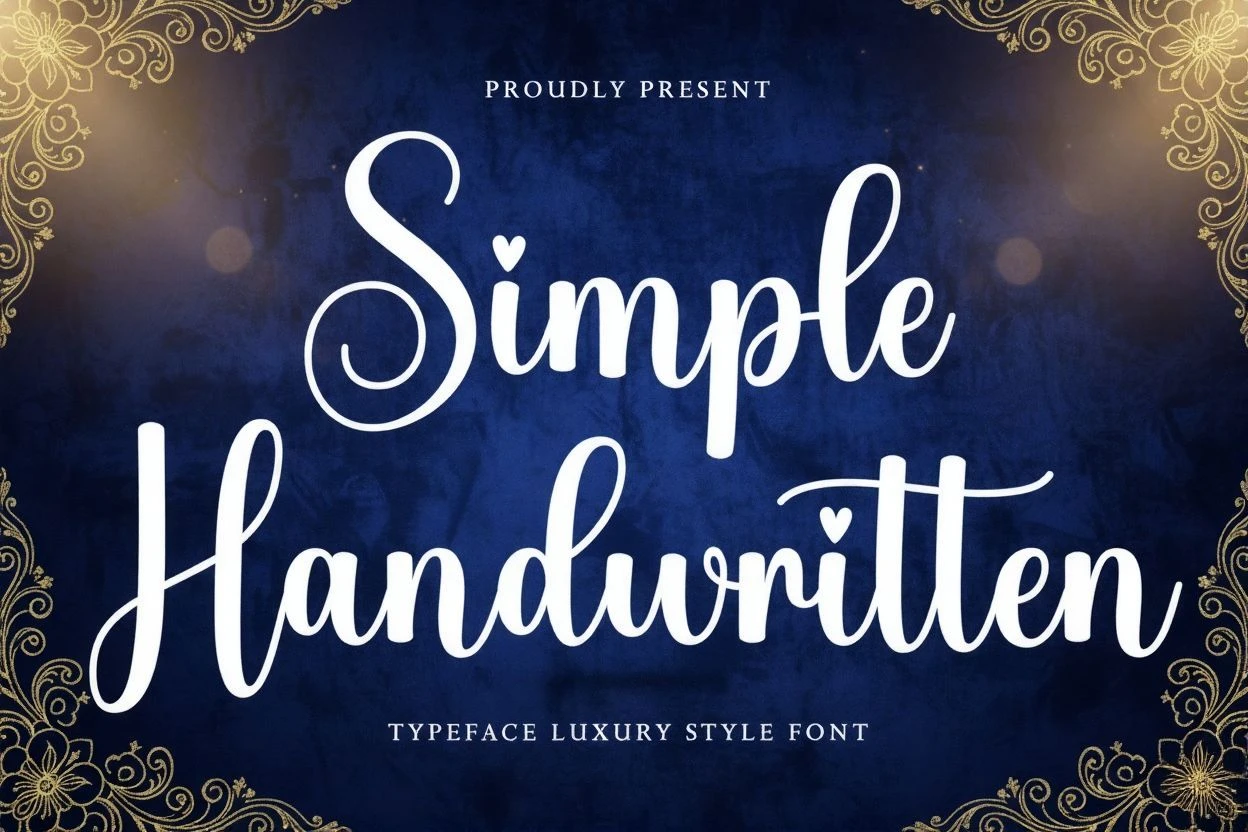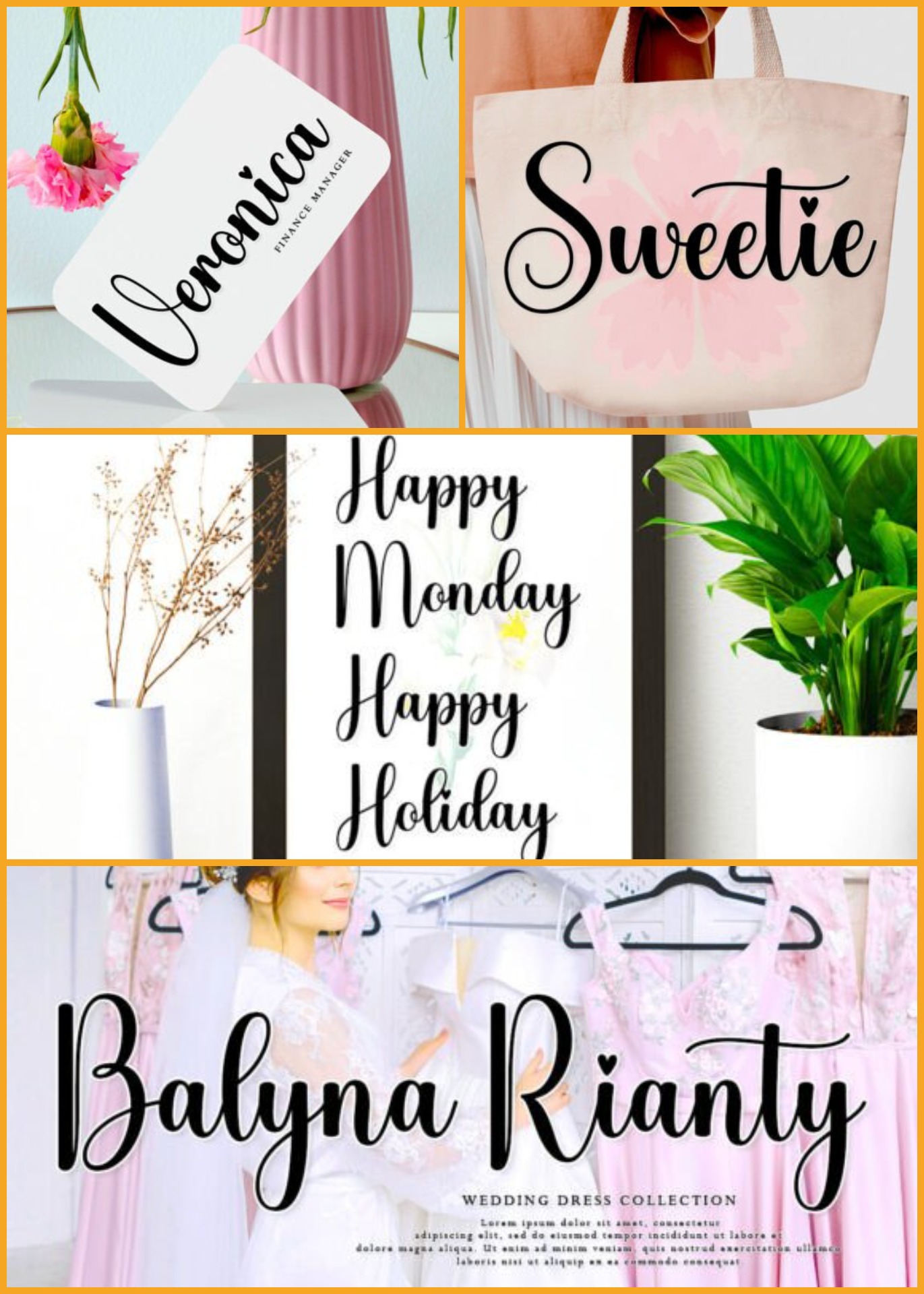
Simple Handwritten – Soft Elegant Handwriting Script Font
Simple Handwritten is an elegant handwritten font with smooth strokes — perfect for weddings, branding, and soft modern creative designs.
Meet Simple Handwritten Font, a delicate handwriting typeface crafted to add a soft, personal touch to any project. Its gentle rhythm and natural flow make it ideal for logos, wedding invitations, fashion branding, and creative promotions. Elegant yet casual, it beautifully balances refinement and authenticity, bringing warmth and sophistication to your designs.